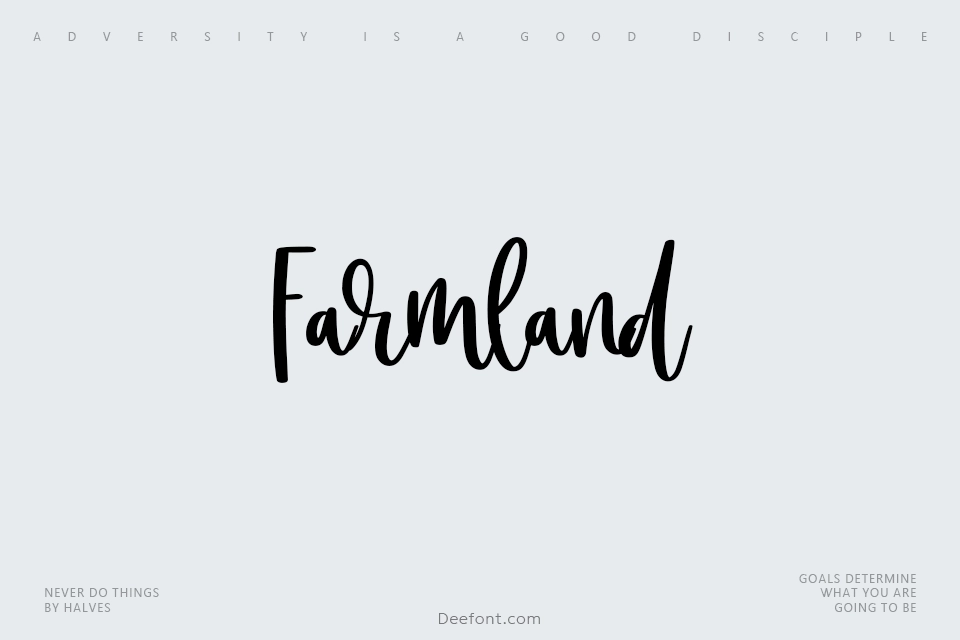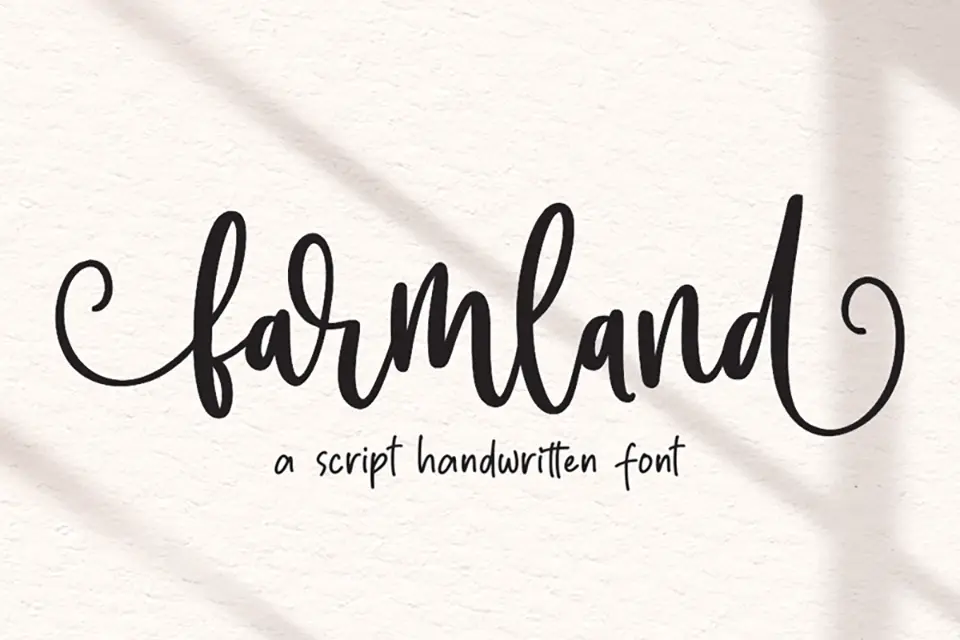
Farmland Font
Farmland is an elegant handwritten script font that combines flowing cursive letters with a playful bouncy baseline. Designed for personal creative projects, this typeface features calligraphic elegance and smooth curves perfect for logos, packaging, invitations, and branding applications. The font delivers charming typography with a humanistic touch, making it ideal for adding warmth and personality to your designs.